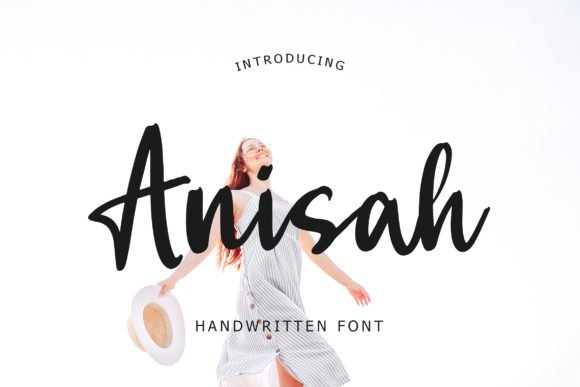
Bring a Personal Touch to Your Designs with Anisah Font
Have you ever been working on a design project, and suddenly, the perfect font pops into your head? For designers, those moments are a thrill. It’s the spark that ignites creativity and sets the tone for the entire project. For me, that moment happened when I stumbled upon the Anisah Font – a casual, handwritten font that adds a special touch to any design.
The Anisah Font is a versatile tool that can elevate your designs from mundane to magical. Whether you’re crafting logos, wedding designs, social media posts, or product packaging, this font will bring a unique personality to your work. Its casual charm makes it an invaluable asset for designers looking to add a personal touch to their projects.
Anisah Font Key Features
- Unique Characteristics: Elegant, modern script font with intricate details and flowing connections between letters
- Language Support: Supports multiple languages, including Latin-based languages and some Cyrillic scripts
- Font Style: Script, Calligraphy
Designer Review: Anisah Font
I recently had the chance to work with the Anisah font, and I must say it’s a unique and beautiful addition to any design project. Here are some of the things that worked well for me:
- ✨ The font’s elegance and sophistication make it perfect for high-end branding and luxury projects.
- ✨ The Anisah font is highly legible, even at smaller font sizes, which is a must for any font that’s going to be used extensively in a design project.
- ✨ The font’s versatility allows it to be used in a variety of contexts, from headlines to body text, and it always looks great.
However, I did encounter some limitations with the Anisah font:
- ⚠️ The font’s italic and bold styles are not as refined as the regular style, which can make them look a bit inconsistent.
- ⚠️ The font’s x-height is a bit small, which can make it difficult to read in certain contexts.
Overall, I think the Anisah font is a solid choice for designers who are looking for a high-end, elegant font. While it’s not perfect, its strengths far outweigh its limitations, and I would definitely consider using it again in the future.
Alternatives to Anisah Font
Great Vibes Font is a modern and elegant script font that is perfect for creating a professional and sophisticated look. It is ideal for use in logo design, wedding invitations, and other creative projects where a touch of elegance is required.
Great Vibes Font is similar to Anisah Font in its flowing and connected script style, but it has a more refined and polished appearance. It is a great choice for designers who want to add a touch of sophistication to their designs.
Carolyna Pro Font is a high-end script font that is designed for luxury brands and high-end design projects. It is perfect for use in logo design, packaging design, and other creative projects where a touch of luxury is required.
Carolyna Pro Font is similar to Anisah Font in its elegant and sophisticated style, but it has a more refined and polished appearance. It is a great choice for designers who want to add a touch of luxury to their designs.
Alex Brush Font is a beautiful and elegant script font that is perfect for creating a professional and sophisticated look. It is ideal for use in logo design, wedding invitations, and other creative projects where a touch of elegance is required.
Alex Brush Font is similar to Anisah Font in its flowing and connected script style, but it has a more rustic and handmade appearance. It is a great choice for designers who want to add a touch of warmth and personality to their designs.